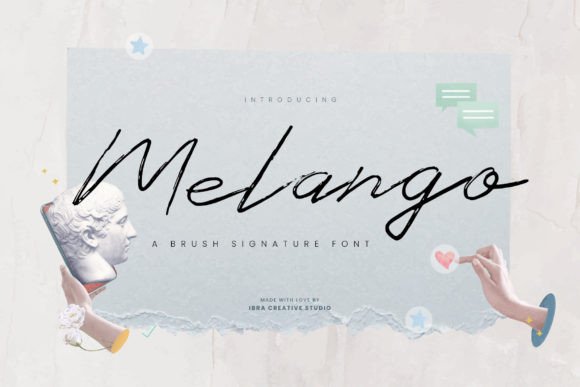
In a world saturated with digital monotony, Melango Font emerges as a radiant beacon of creativity and individuality. This enchanting script font, crafted by the ingenious hands of ibracreative, is not merely a collection of letters; it is an artistic expression that transforms your digital creations into captivating masterpieces.
Melango's essence lies in its brush-like strokes, each one whispering tales of authenticity and spontaneity. Its varying thicknesses mimic the natural flow of ink on paper, creating a dynamic and organic aesthetic. With Melango, your designs transcend the boundaries of the mundane and enter the realm of the extraordinary.
Unleash your imagination and harness Melango's versatility to breathe life into your logos, branding, and creative projects. Its captivating curves and expressive lines lend an air of sophistication and elegance, making it the perfect choice for invitations, greeting cards, and social media graphics. Melango effortlessly elevates your designs, transforming them into works of art that resonate with viewers on a deeper level.
Beyond its aesthetic allure, Melango possesses a unique ability to connect with your audience on a personal level. Its handcrafted strokes evoke a sense of genuine connection, as if each letter were meticulously written just for them. This intimate touch adds a layer of warmth and sincerity to your designs, leaving a lasting impression that lingers in their hearts and minds.
Melango is not just a font; it is a storyteller, a muse, a companion on your creative journey. It empowers you to express your individuality, to share your stories, and to make a lasting impact in the digital world. Embrace the artistry of Melango, and watch as your designs blossom into captivating expressions of your unique vision.